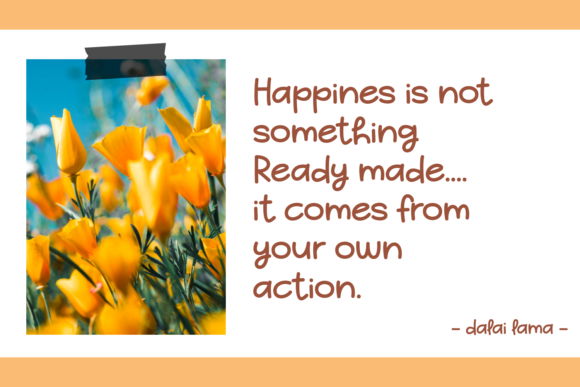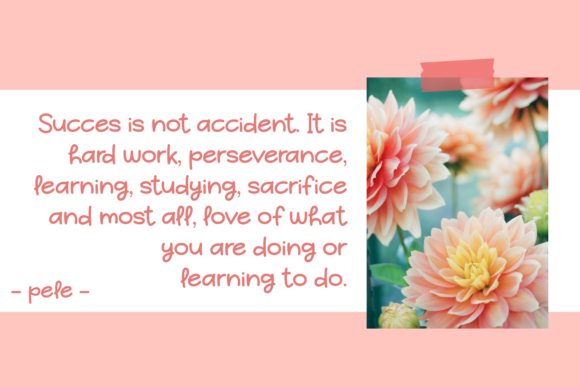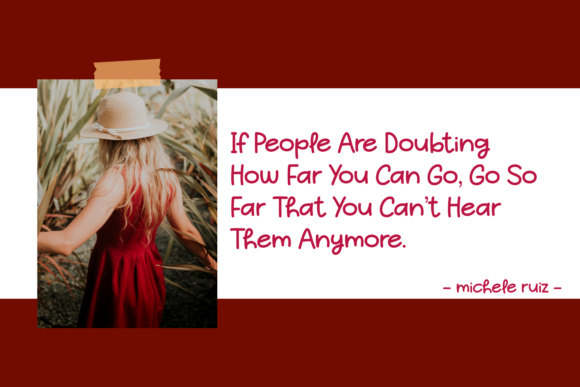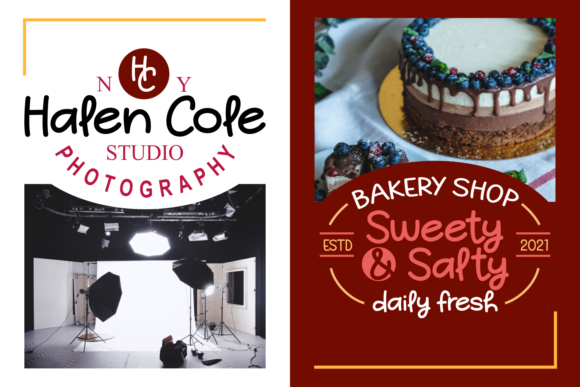
Rainbow and Miracles Font
About Rainbow and Miracles Font
Rainbow And Miracles is a cute, jolly and sweet handwritten font. Whether you use it for cartoon related designs, children games or just any creation that requires a lovely touch, this font will be an amazing choice.